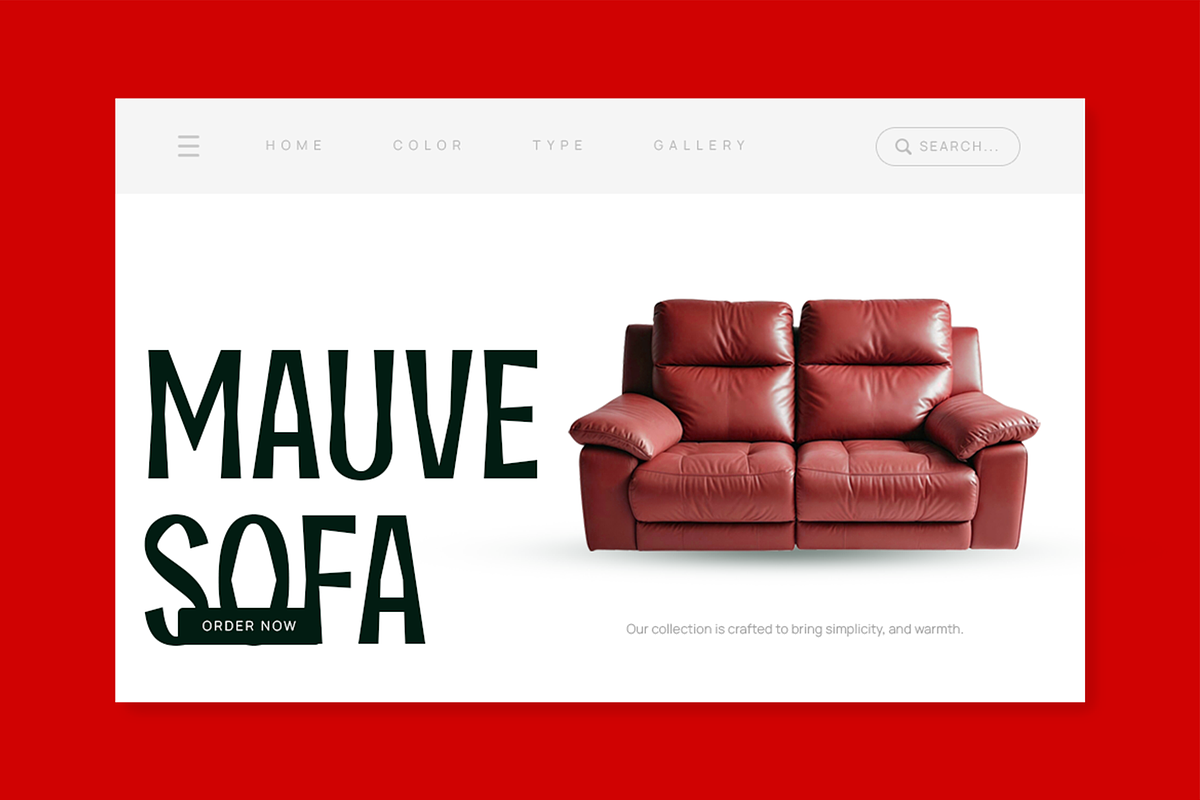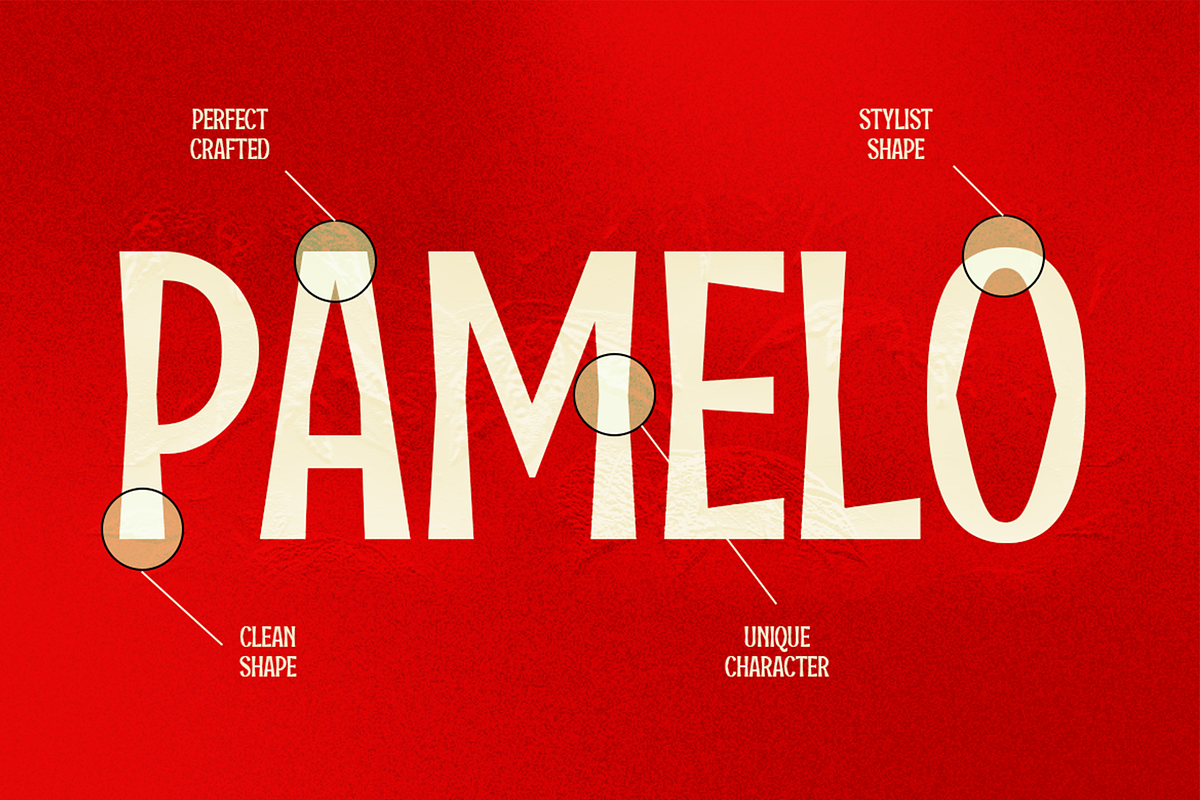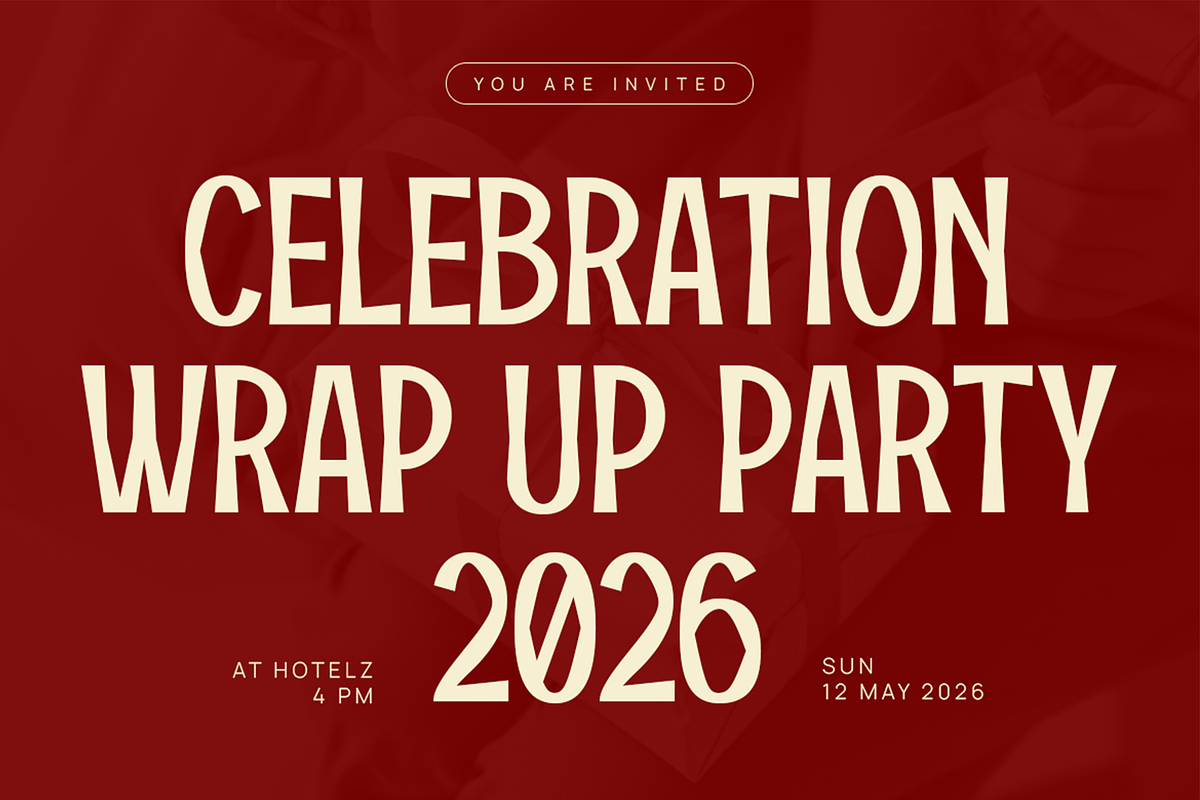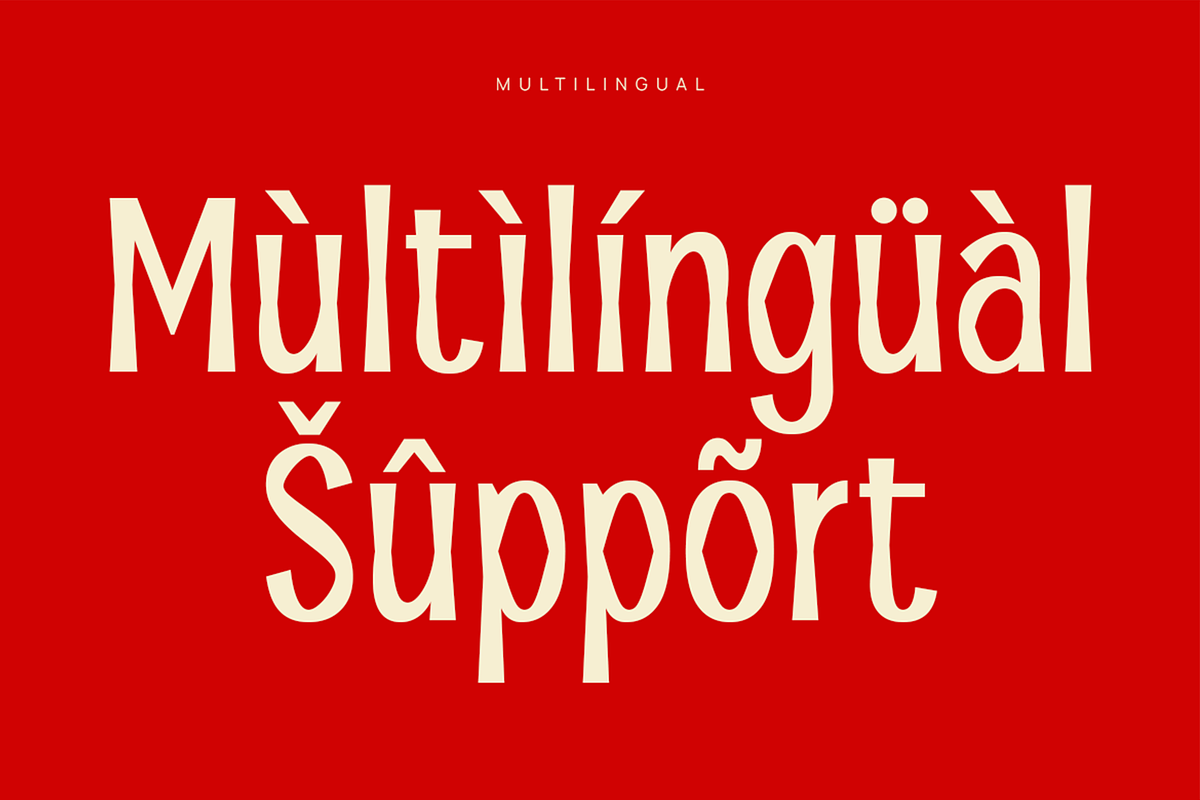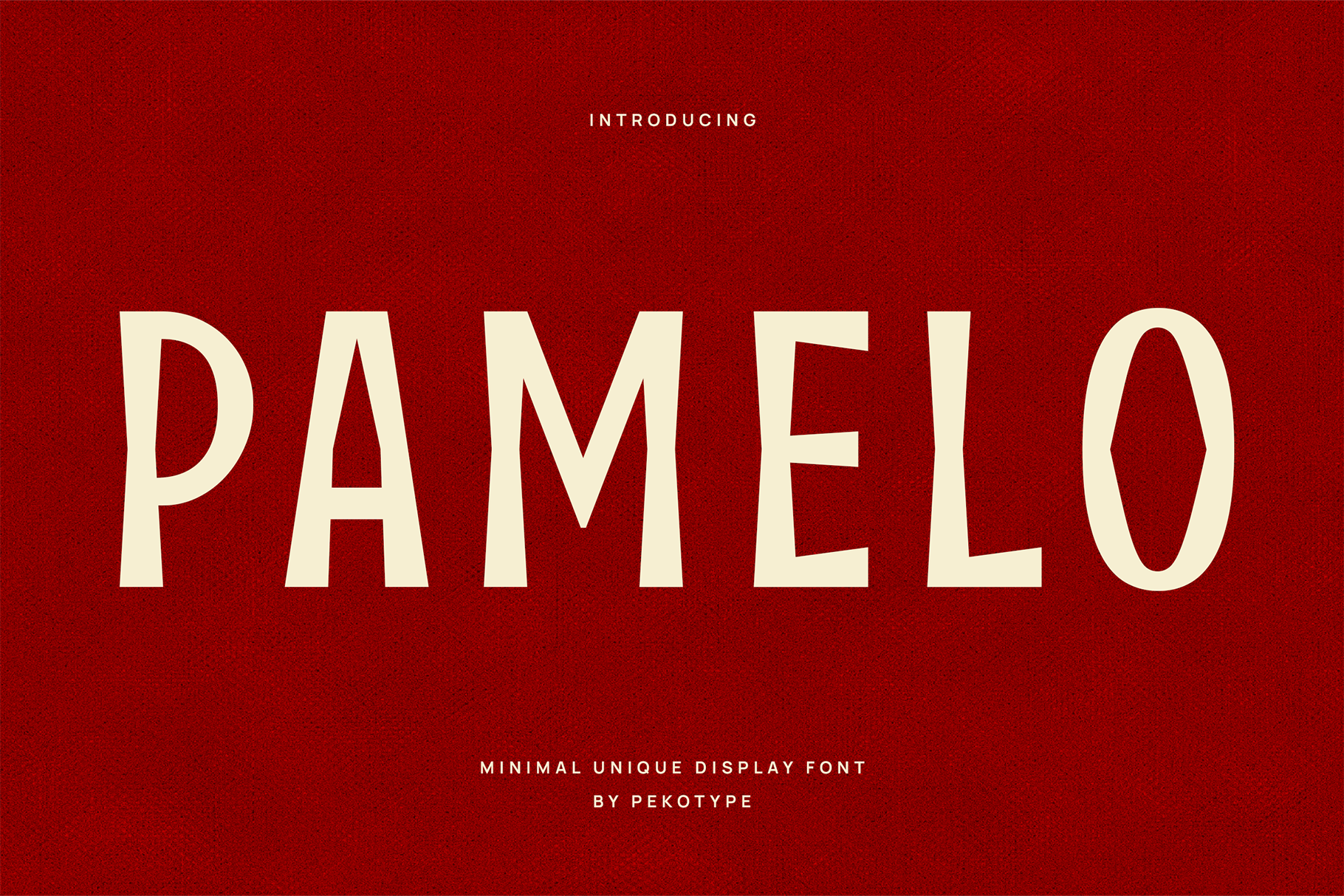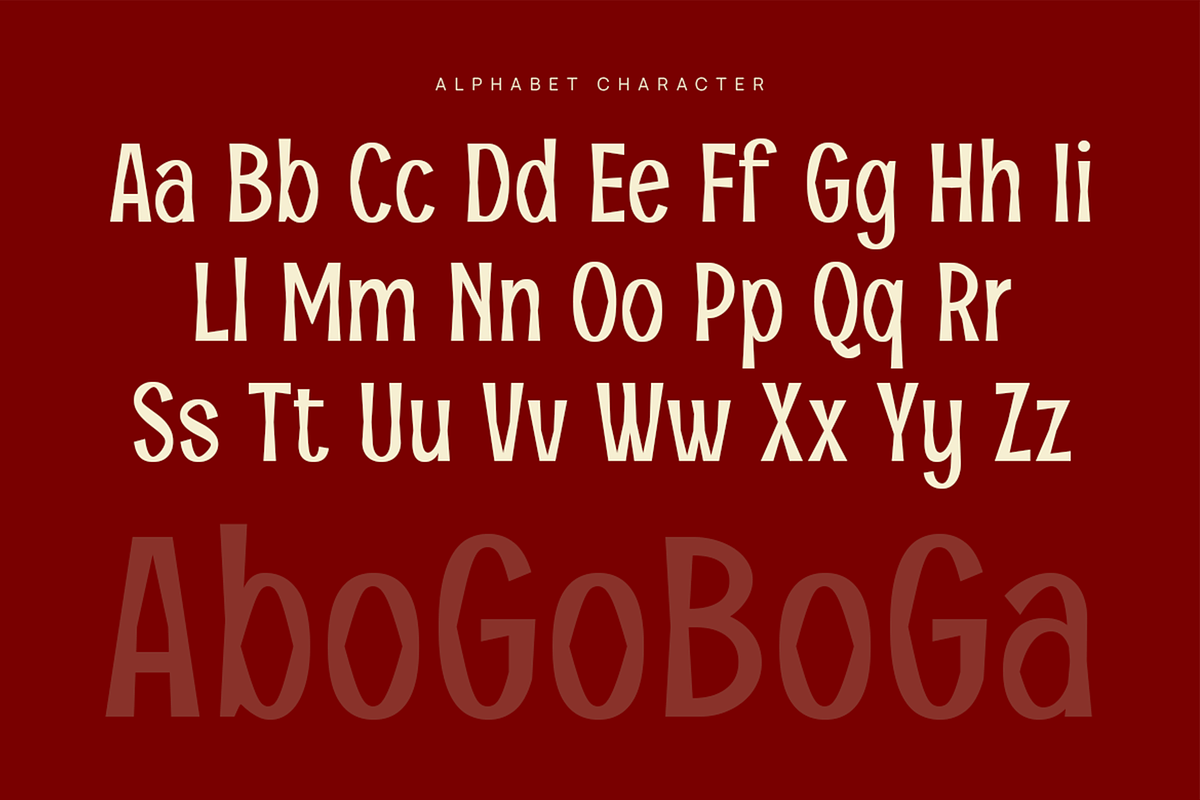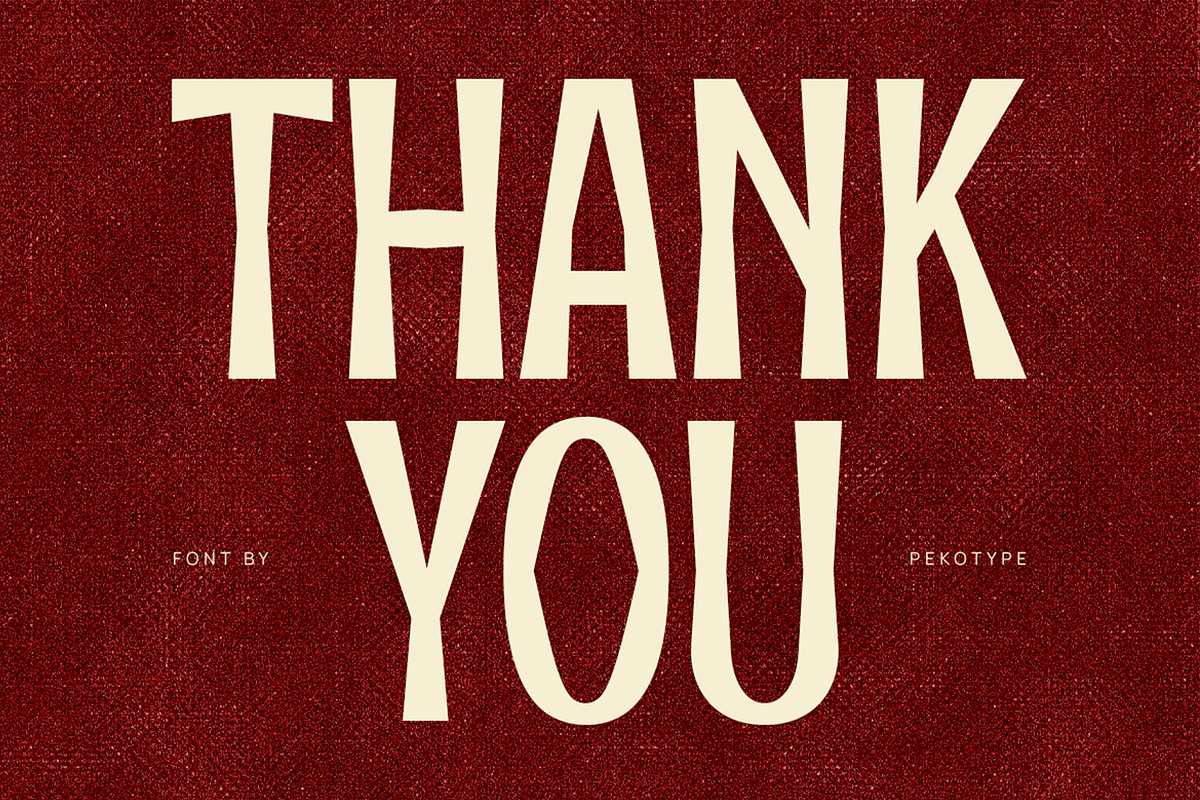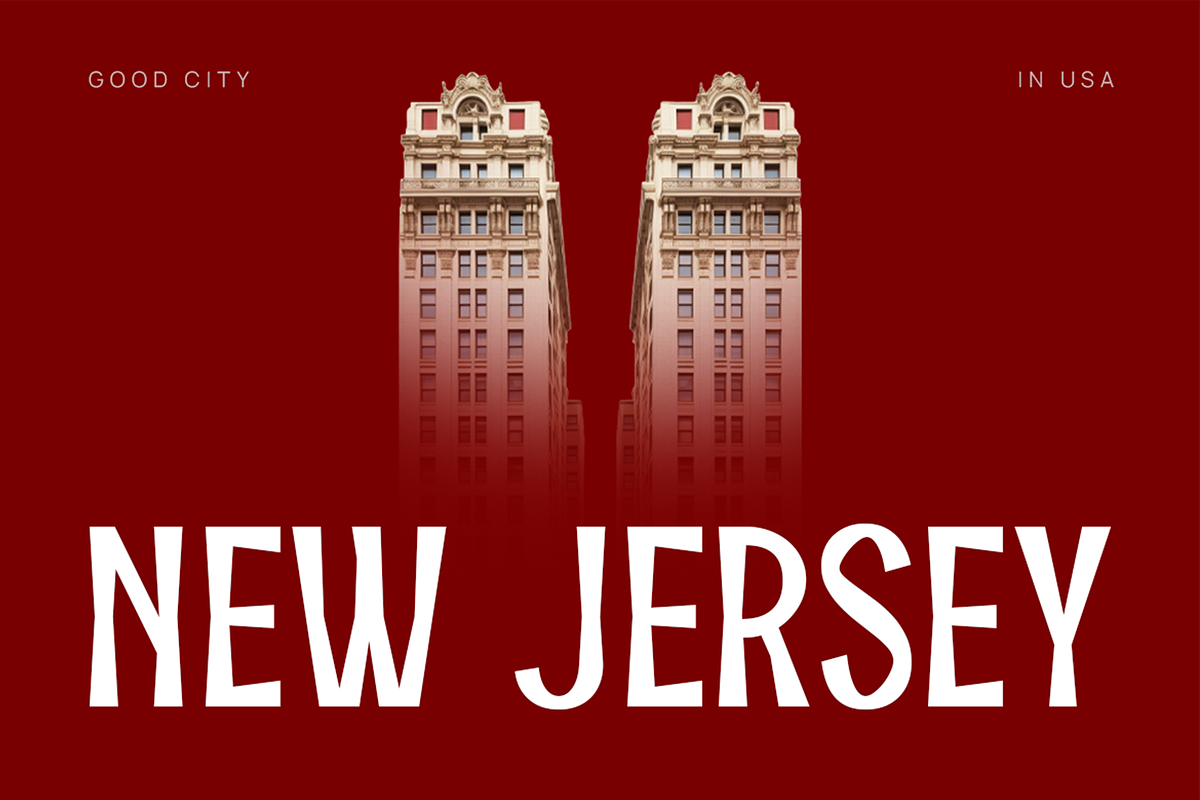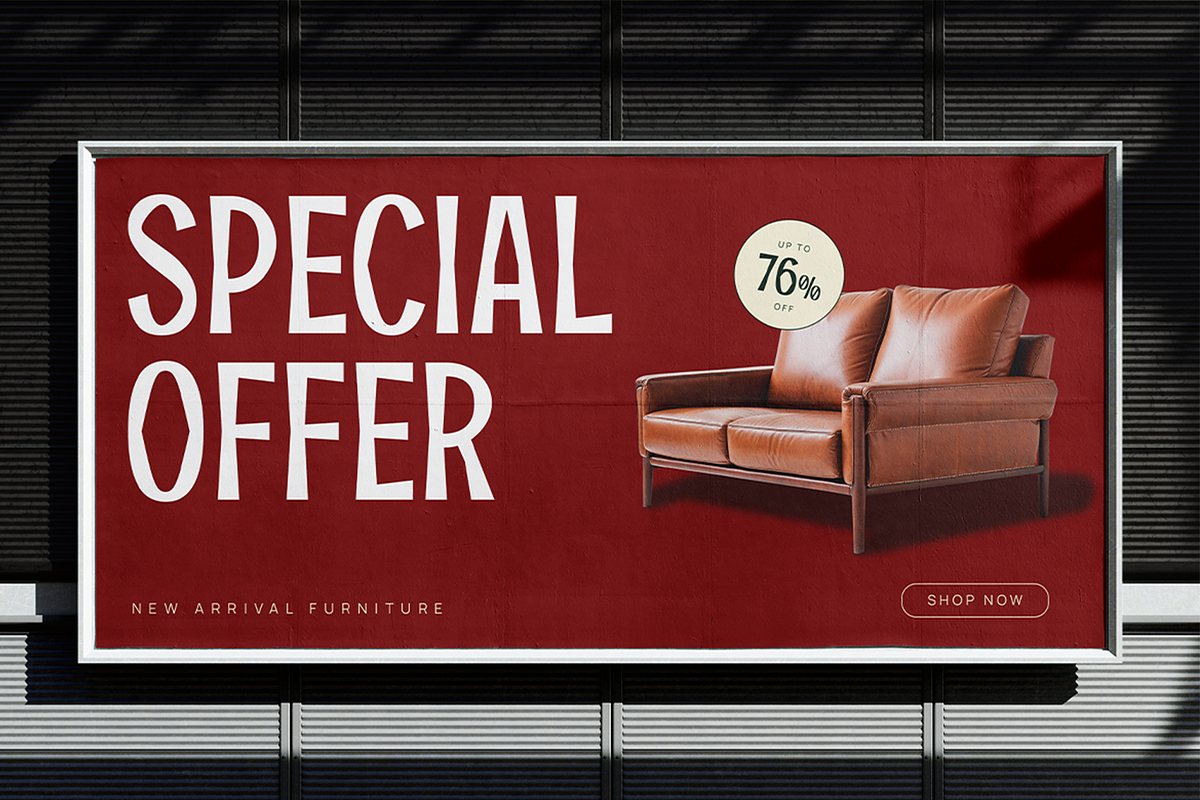
Pamelo - Bold Sans Serif Font
PAMELO – Bold Hand-Drawn Sans Serif Font with Playful Character
PAMELO is a bold hand-drawn sans serif typeface designed to bring a playful, organic, and friendly personality to your designs. With its imperfect strokes, soft curves, and expressive letterforms, PAMELO feels warm, approachable, and full of character—perfect for brands that want to feel human and memorable.
Featuring uppercase and lowercase characters along with full multilingual support, PAMELO offers great flexibility for global creative projects. Its bold yet friendly construction makes it ideal for branding, logos, packaging, posters, marketing campaigns, social media content, advertisements, headlines, and promotional materials, especially for lifestyle, food, creative, and youth-oriented brands.
PAMELO is built to stand out while staying readable, making it a strong choice for both digital and print use. Whether you’re designing playful branding, expressive headlines, or eye-catching campaigns, PAMELO Typeface delivers a bold visual impact with an organic, hand-crafted feel.
If you’re looking for a playful sans serif font that combines boldness with warmth and personality, PAMELO Typeface is the perfect companion for creative and modern design projects.
- Number, Symbol, & Punctuation